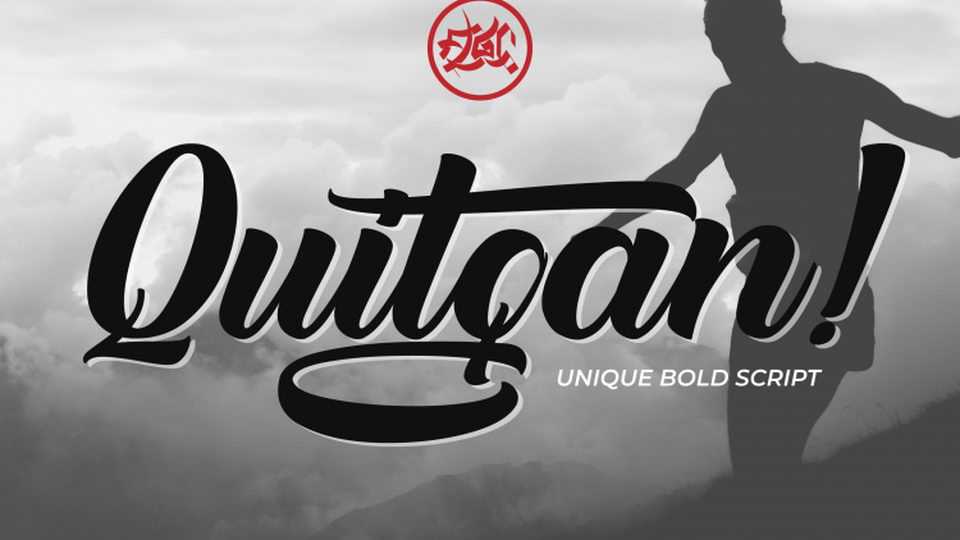
Download Quitgan! font, an amazing handwritten typeface made with natural brush. Quitgan! font will make your design more beautiful and powerful.
Designer: FallenGraphic Std